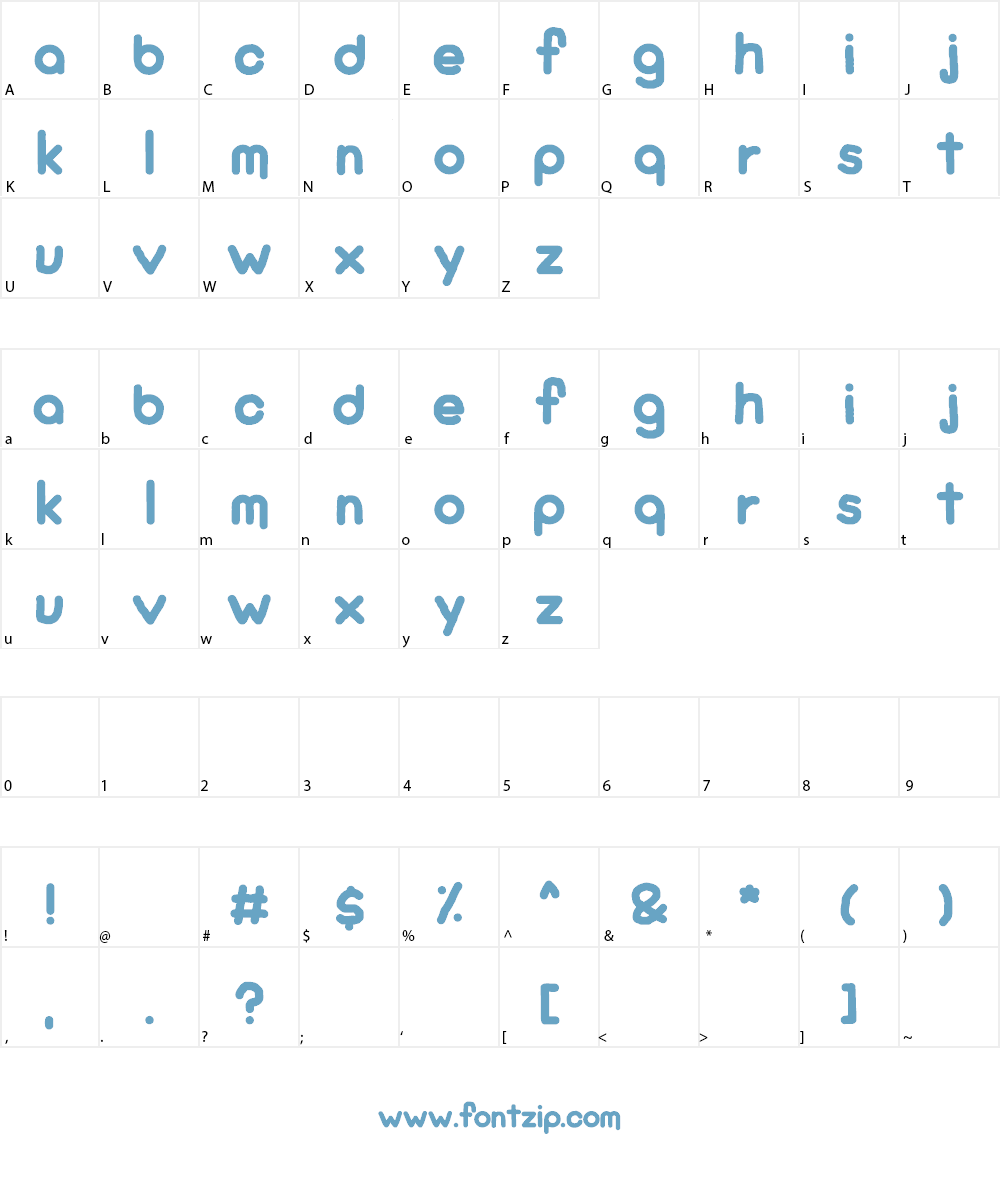
This is the kaBoom Entertainment 2013 logo typeface.
I made the original version with Glyphs and it did not turn out great.
But after a while, I remade it with better features.